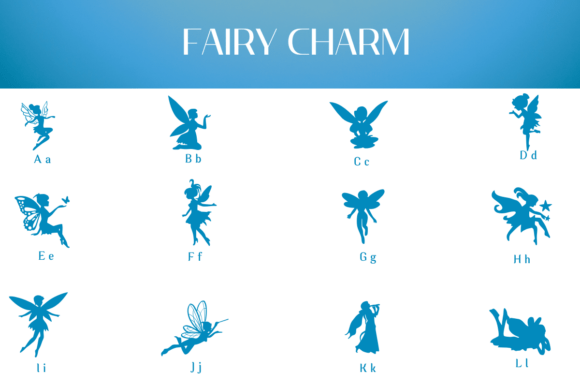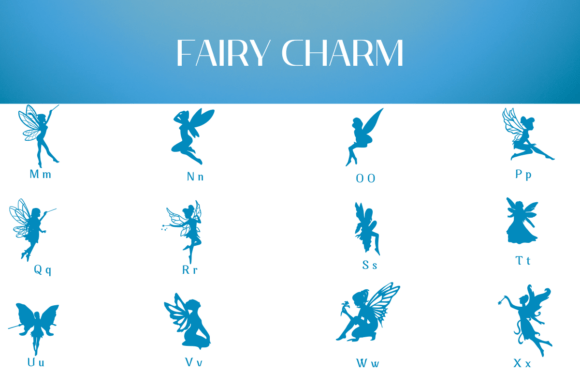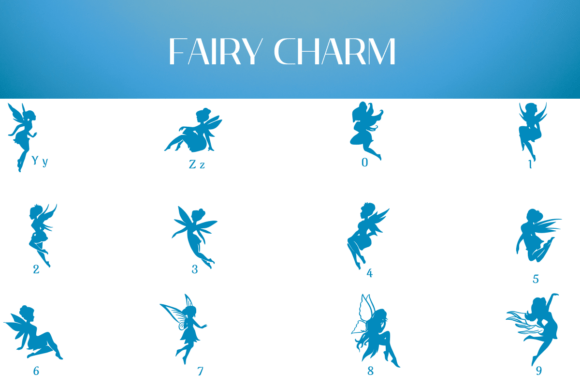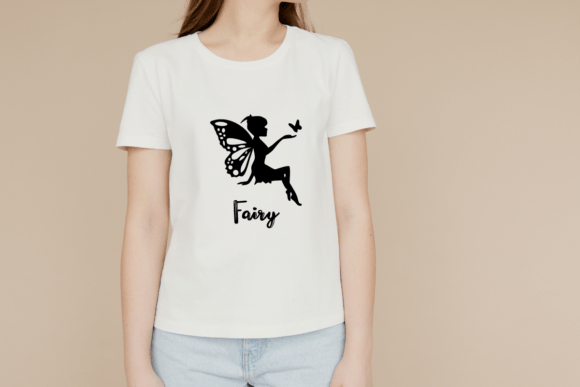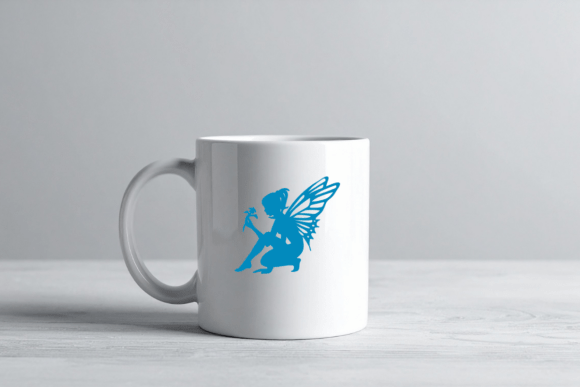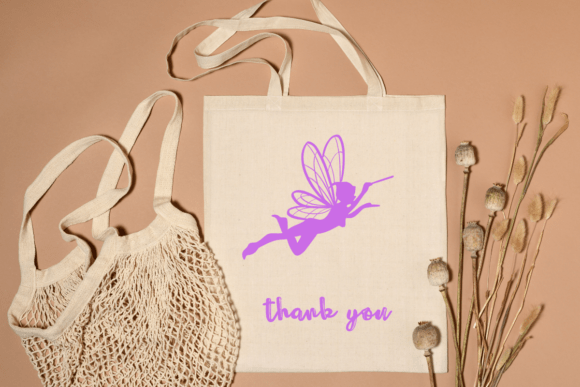
Introduction to Fairy Charm Font Font
Fonts play a crucial role in design, and the Fairy Charm Font font is a typeface that brings both character and versatility to any project. Whether you’re working on a branding project, a website, or a print design, the Fairy Charm Font font offers a unique style that can elevate your work.
Fairy Charm is a lovely dingbats font.
Add it to your creative projects, and you will love the results .
Key Features of Fairy Charm Font Font
Why Choose Fairy Charm Font Font?
The Fairy Charm Font font is more than just a typeface – it’s a design tool that helps you communicate your message with style and clarity. Its unique character set and versatile design make it suitable for a wide range of applications, from elegant invitations to bold headlines.
With its carefully crafted letterforms and balanced proportions, the Fairy Charm Font font ensures readability and visual appeal across all mediums.
What makes Fairy Charm Font font special?
The Fairy Charm Font font stands out with its unique design, exceptional readability, and versatility across various design applications.